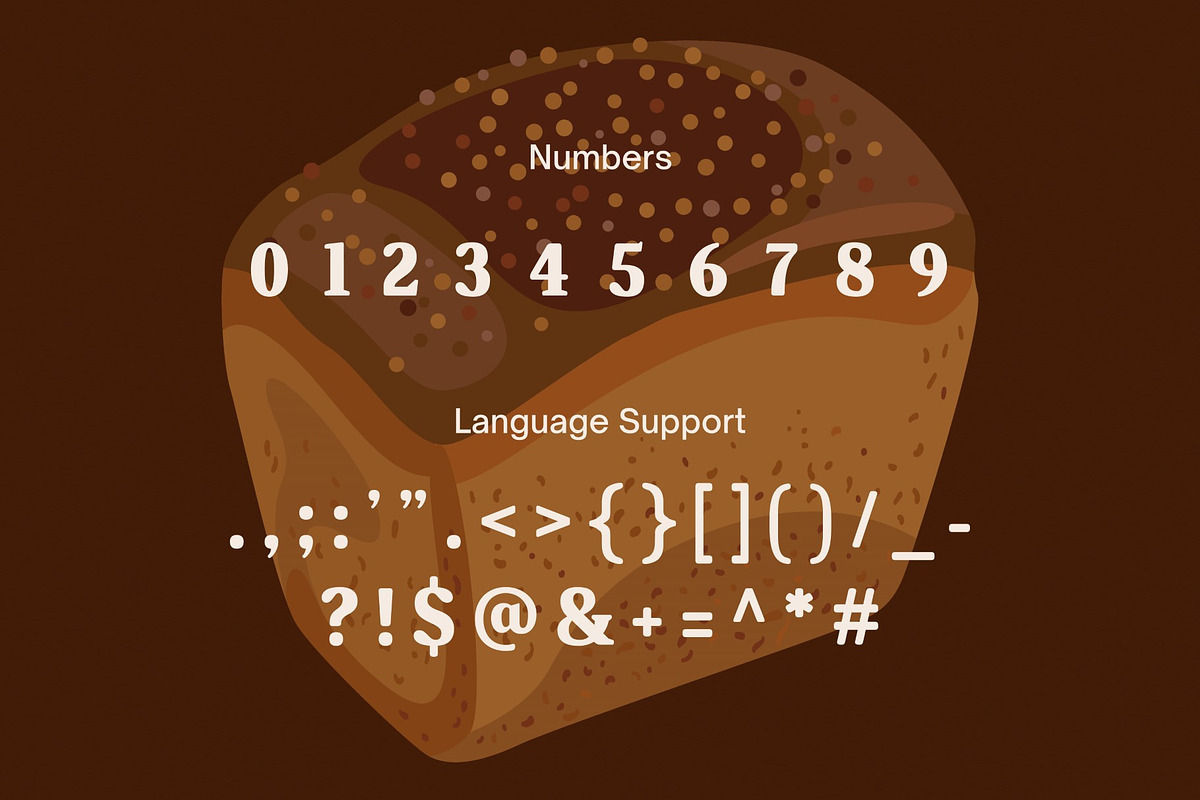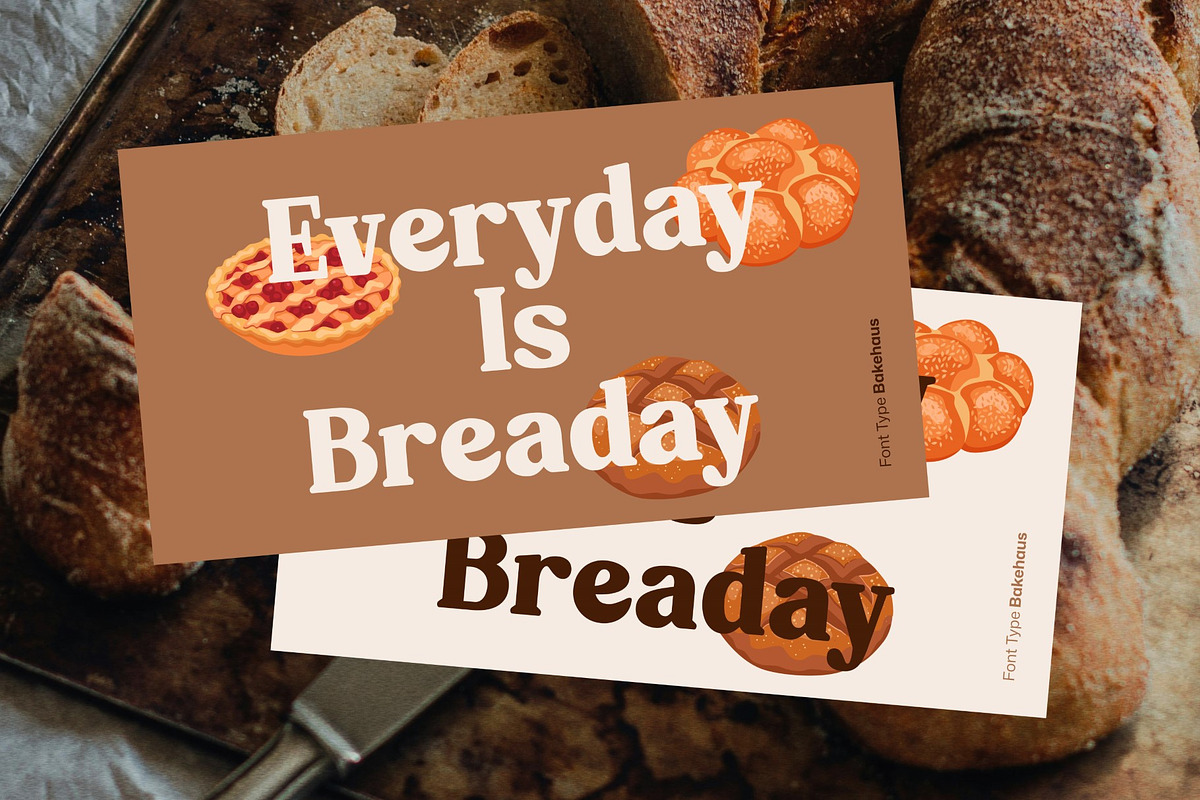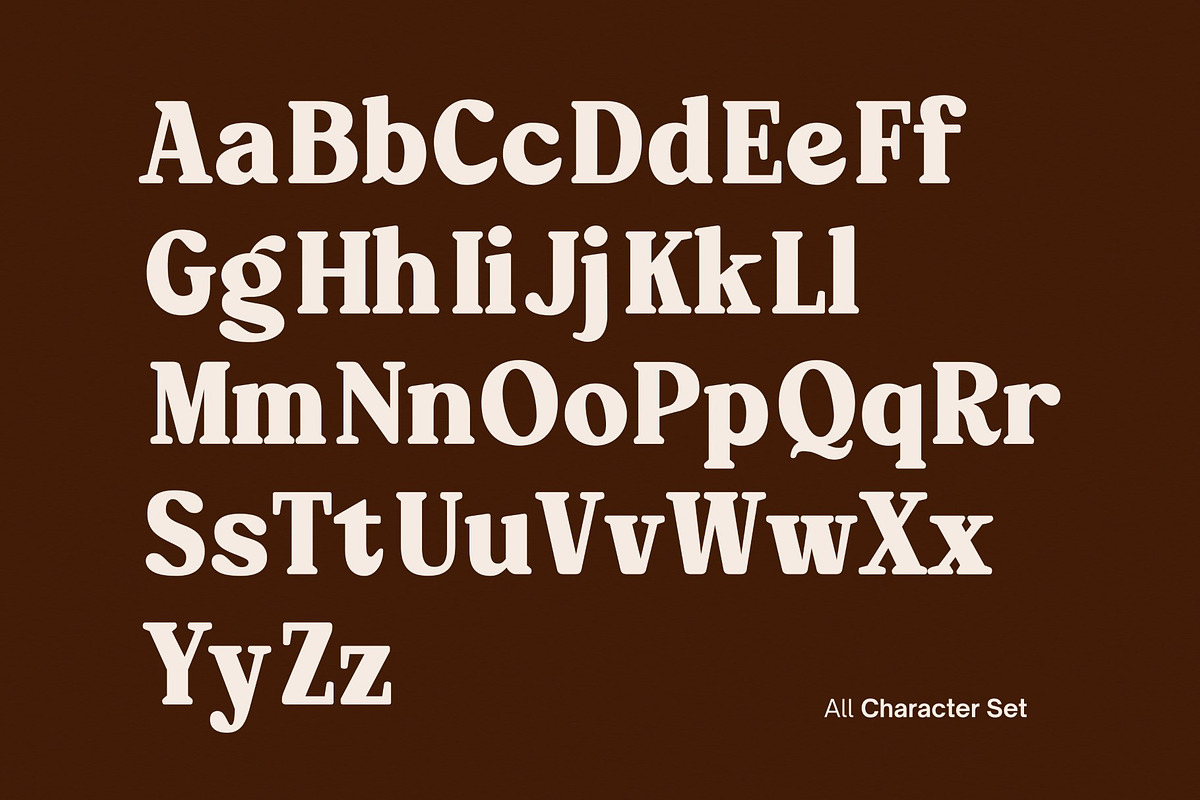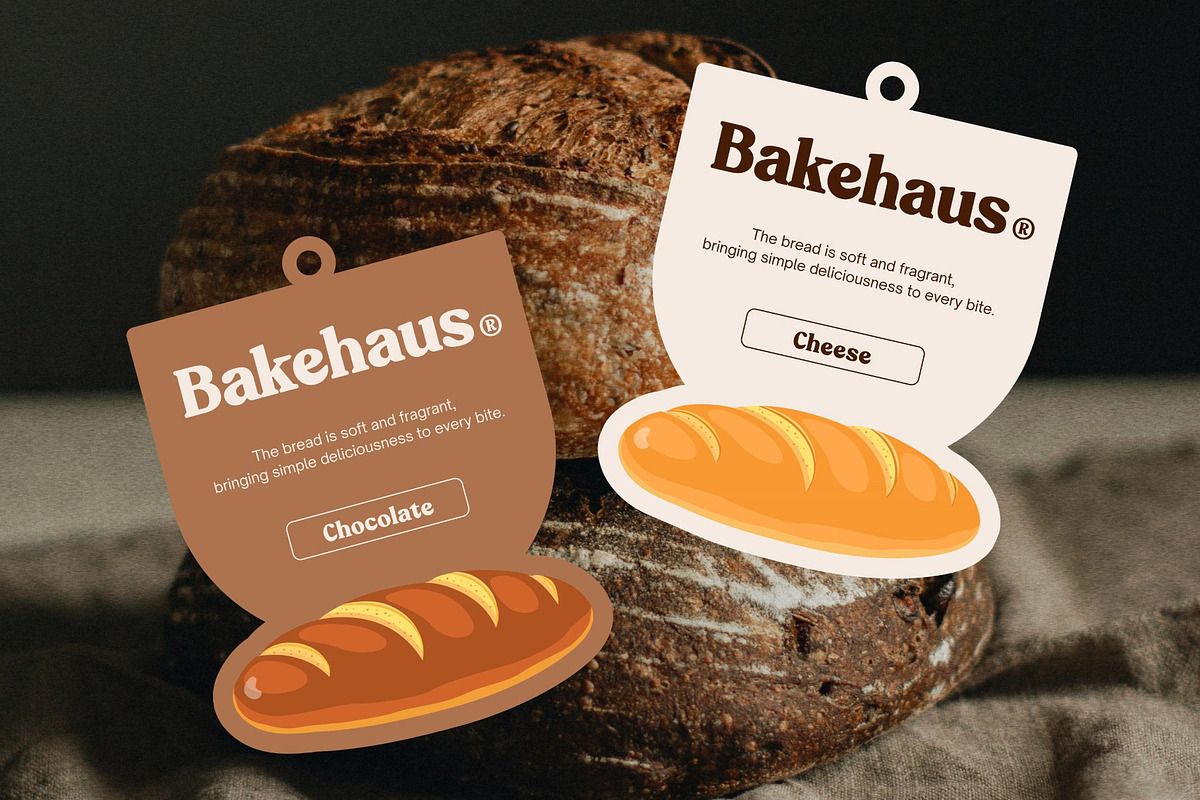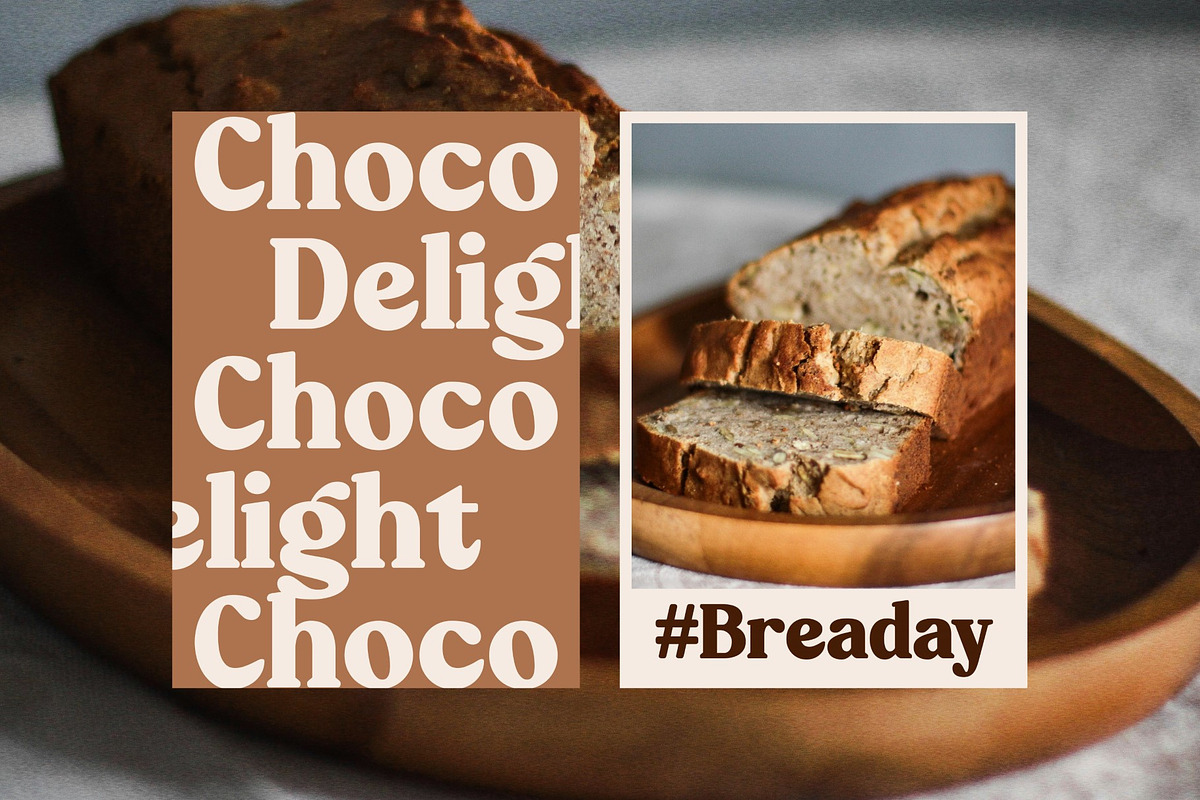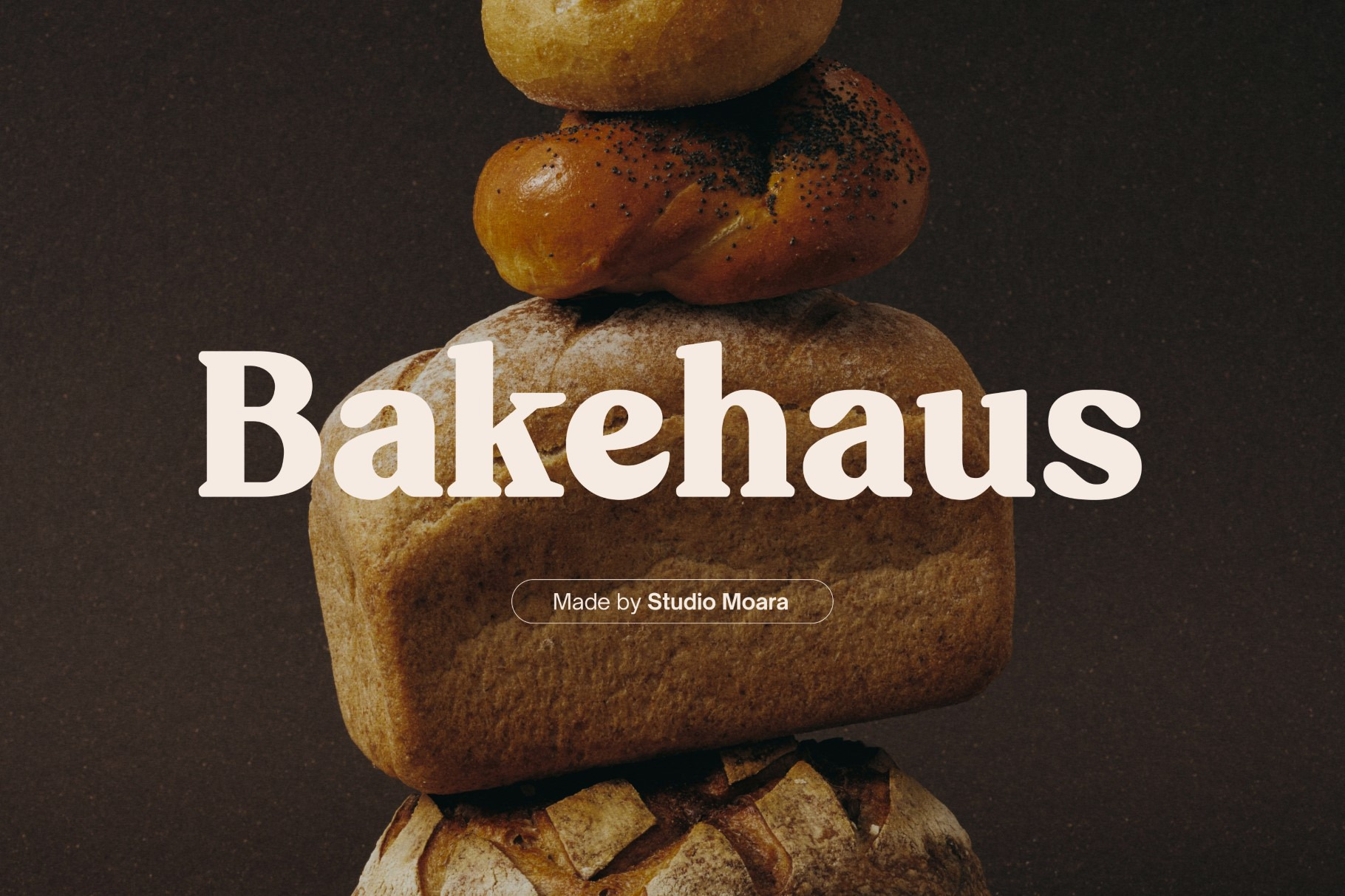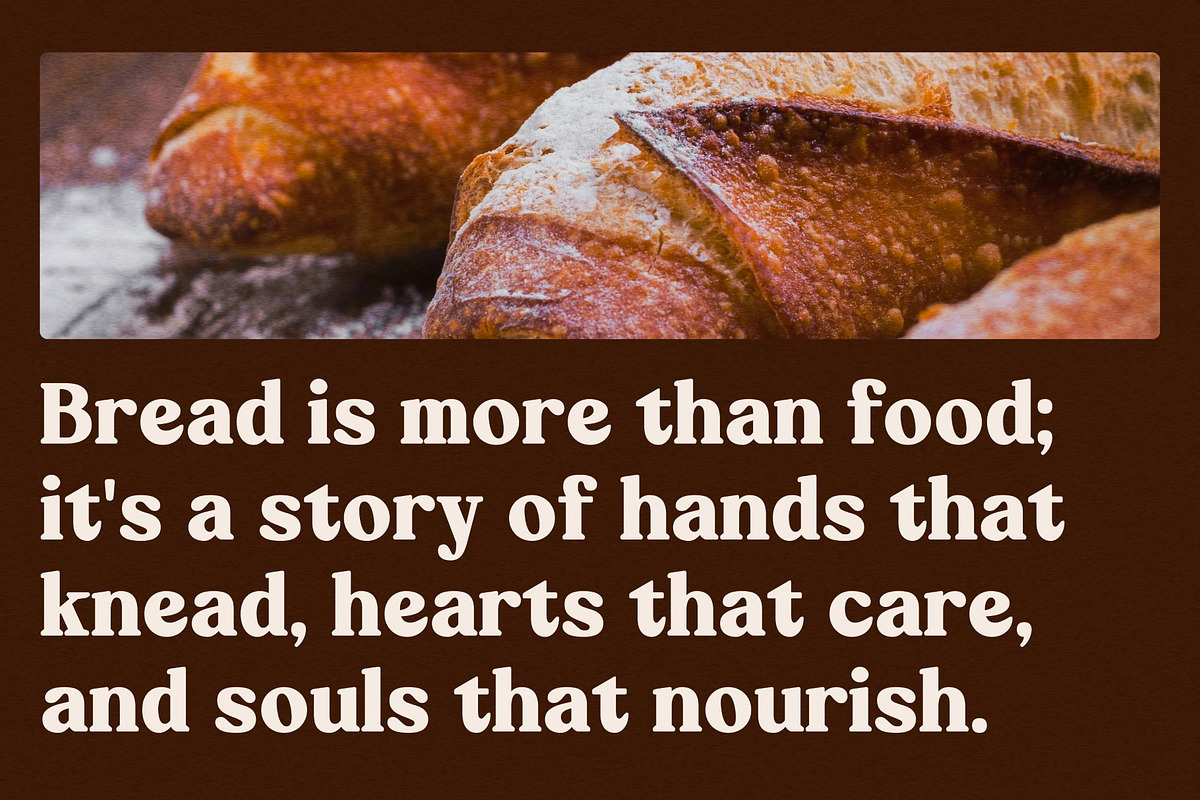
Bakehaus - Retro Bakery Display Font
Bakehaus is a delightful retro display font that evokes the charm of old-fashioned bakeries. With its playful curves and warm character, Bakehaus is perfect for creating eye-catching logos, signage, packaging, menus, and more. Add a touch of nostalgia to your baked goods brand with Bakehaus!